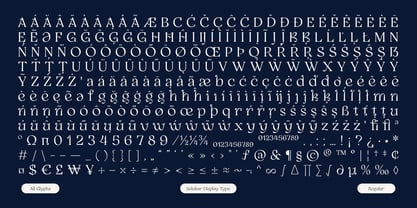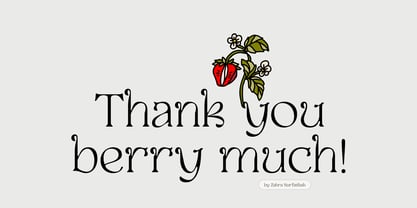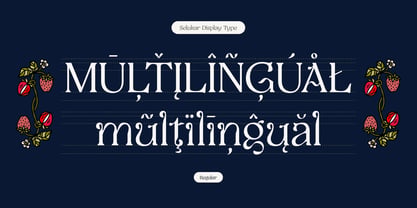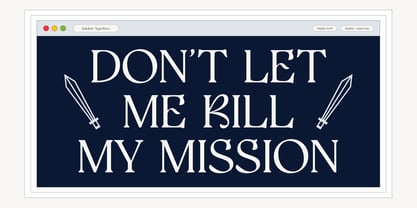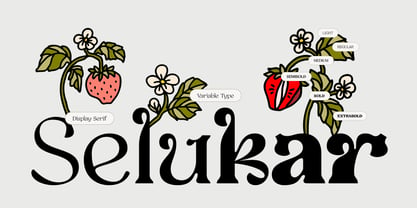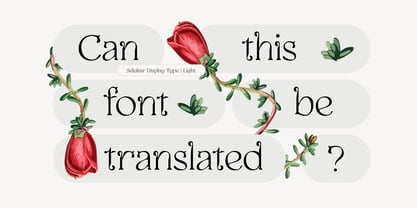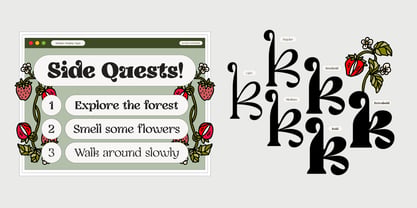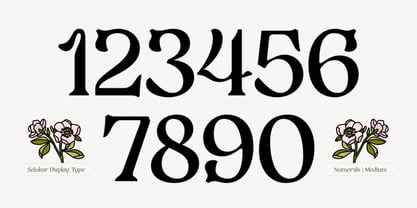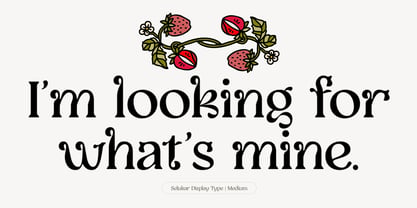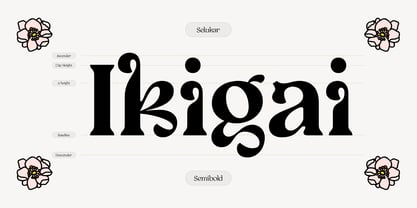
Selukar
by Artflorara
The Selukar Font Family was designed by Zahra Nurfatihah and published by Artflorara. Selukar contains 7 styles and family package options. More about this family
Selukar was created as an expression of fluid senses, deliberate growth, and delicate parts within oneself as a living being. It represents a quiet longing to reach something with reverence.
The name Selukar is derived from the Indonesian term “Semak Belukar,” which refers to the wild bushes/plants. Within this font, the letterforms resemble the organic swirls, branches, and thorny sides of wild floras on the ground.
Selukar is suitable for identity design, logotype, prints, editorials, whimsical event invitations, greeting cards, botanical garden posters, book cover, website design, app, branding, restaurant menus, love letters, merchandise, stationeries, accessories, or any creative projects.